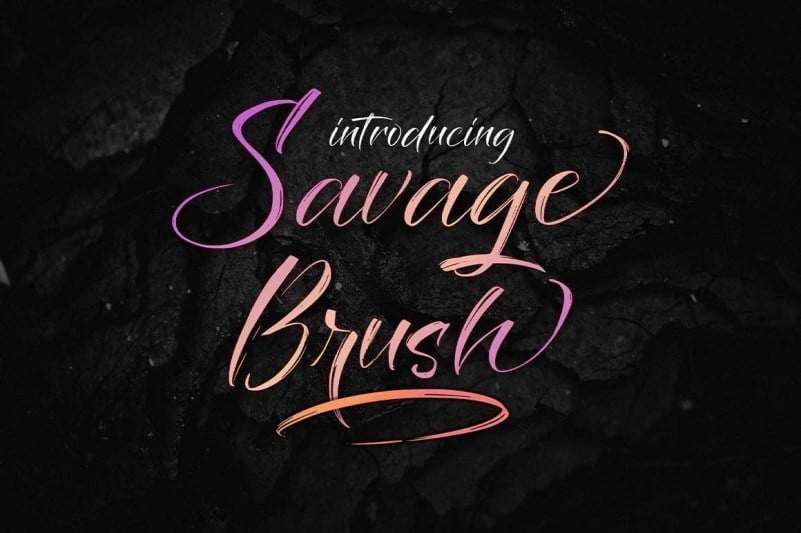
Savage Brush Script Font
Savage Brush is a strikingly versatile and charming brush script font, hand-brushed with care. A contemporary approach to design, handmade natural, suitable for use in title design such as clothing, invitations, book titles, stationery designs, quotes, branding, logos, greeting cards, T-shirts, packaging designs, posters, also already PUA encoded.
This font are perfect for wedding invitation or your blog. Also with their help, you can create a logo or beautiful frame for your home. Or just use for your small business, book covers, stationery, marketing, magazines and more.